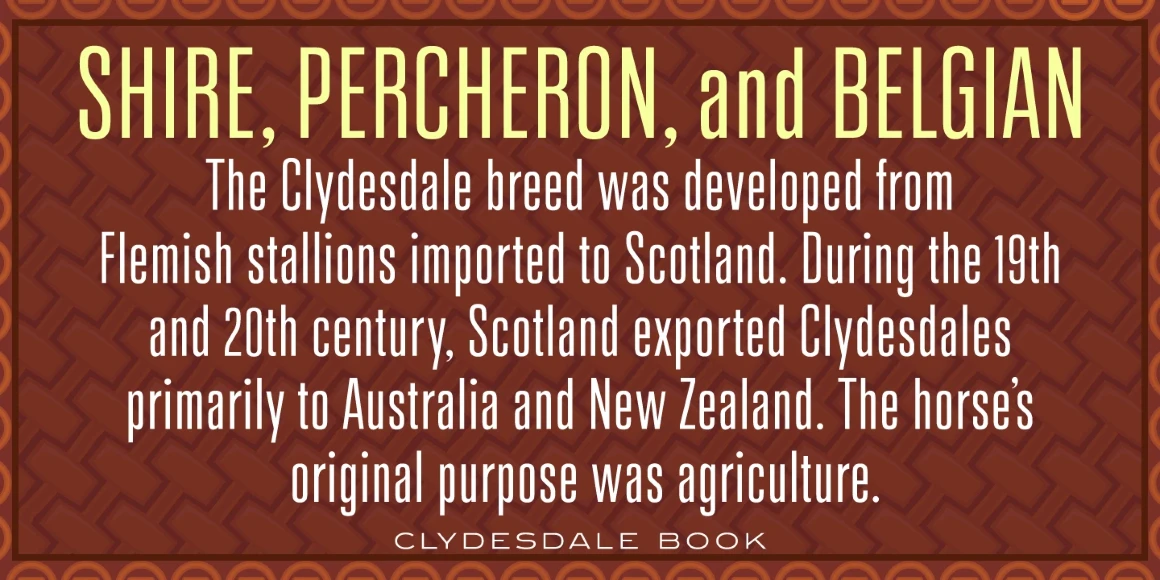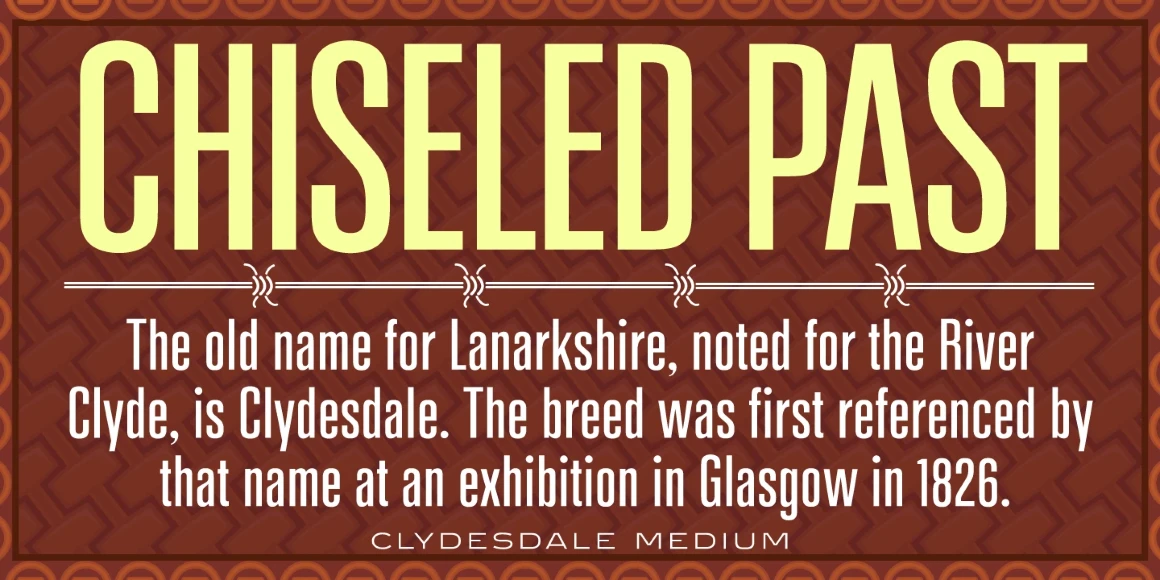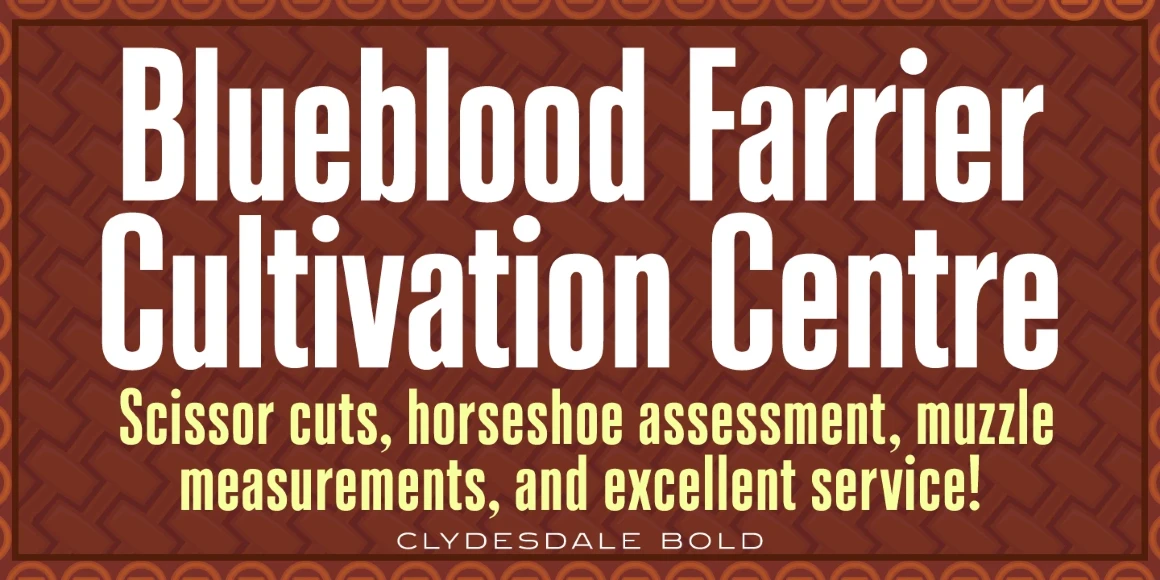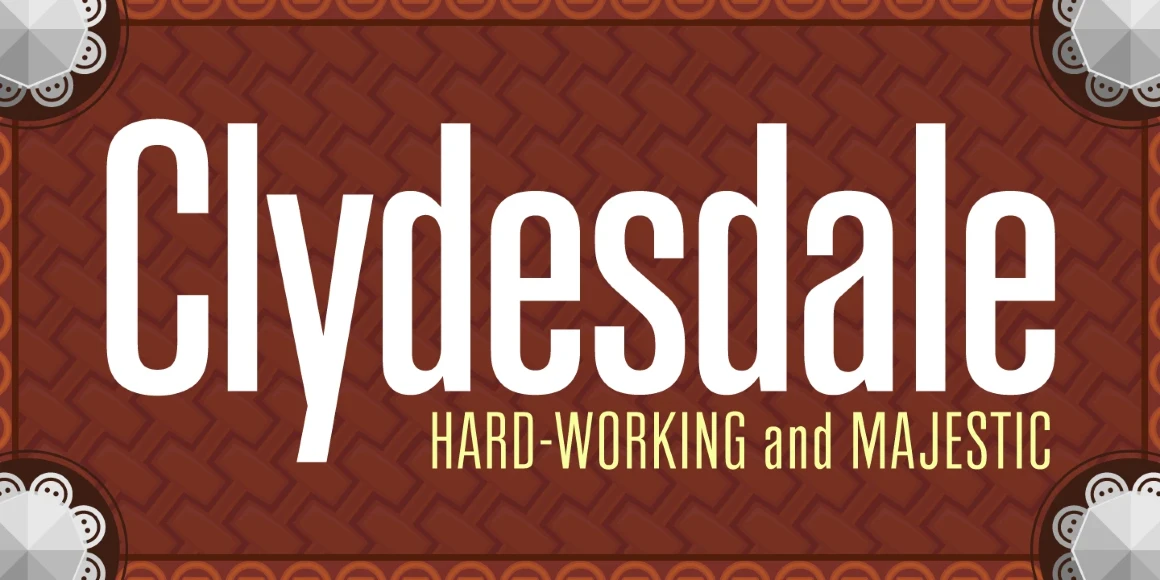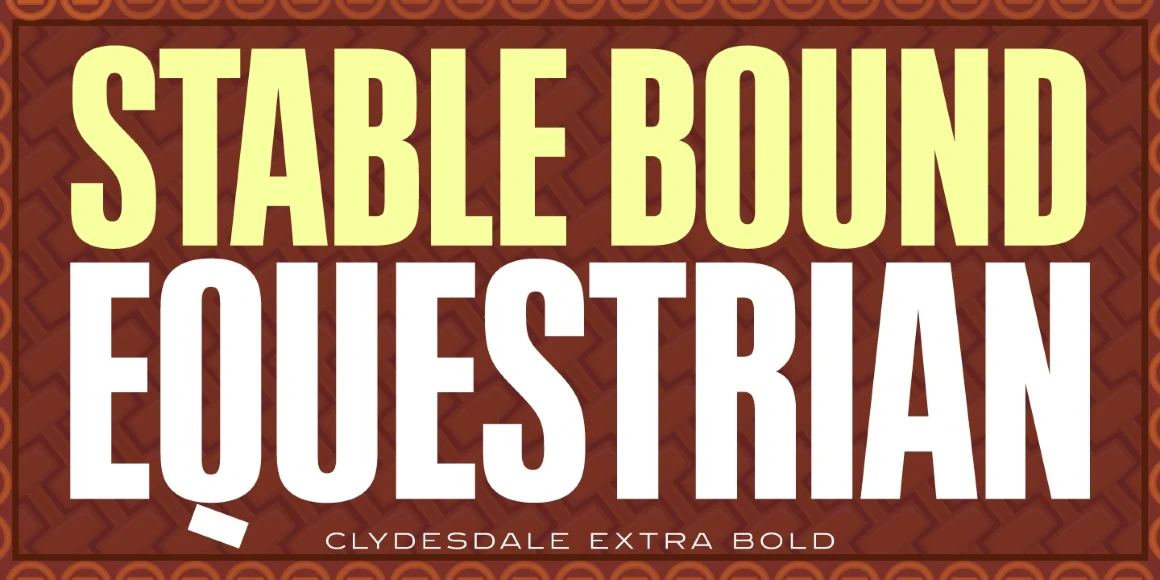
Clydesdale
Clydesdale Light
Clydesdale Book
Clydesdale Medium Bold
Clydesdale Bold
Clydesdale Extra Bold
Clydesdale is a five-weight compressed sans serif font family. It was designed by Steve Jackaman (ITF) over a several-year period, and was released in 2017. Clydesdale, much like its sister typefaces Coliseum and Torpedo, was inspired by authoritative Roman display typefaces. The font family excels in displays, but is a great performer in all text sizes. It is perfect for users who enjoy the impressiveness of Coliseum and Torpedo, and need a complementary sans serif typeface.